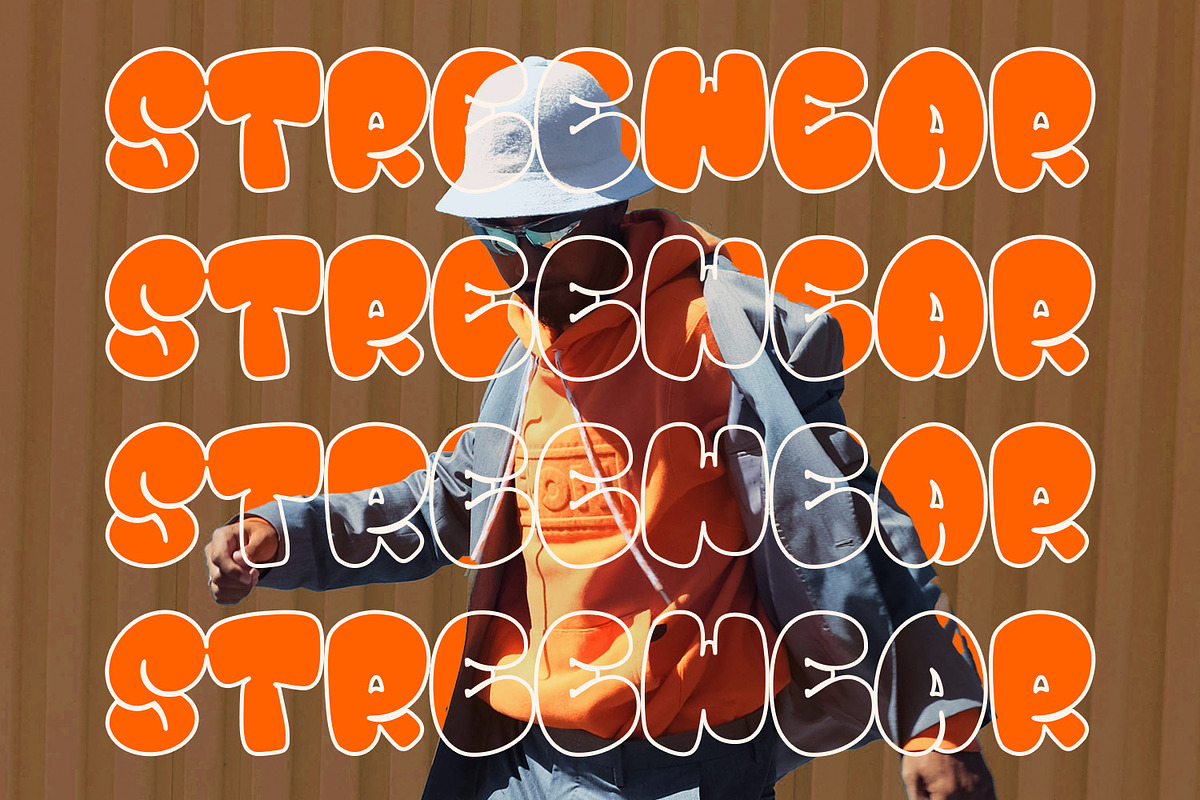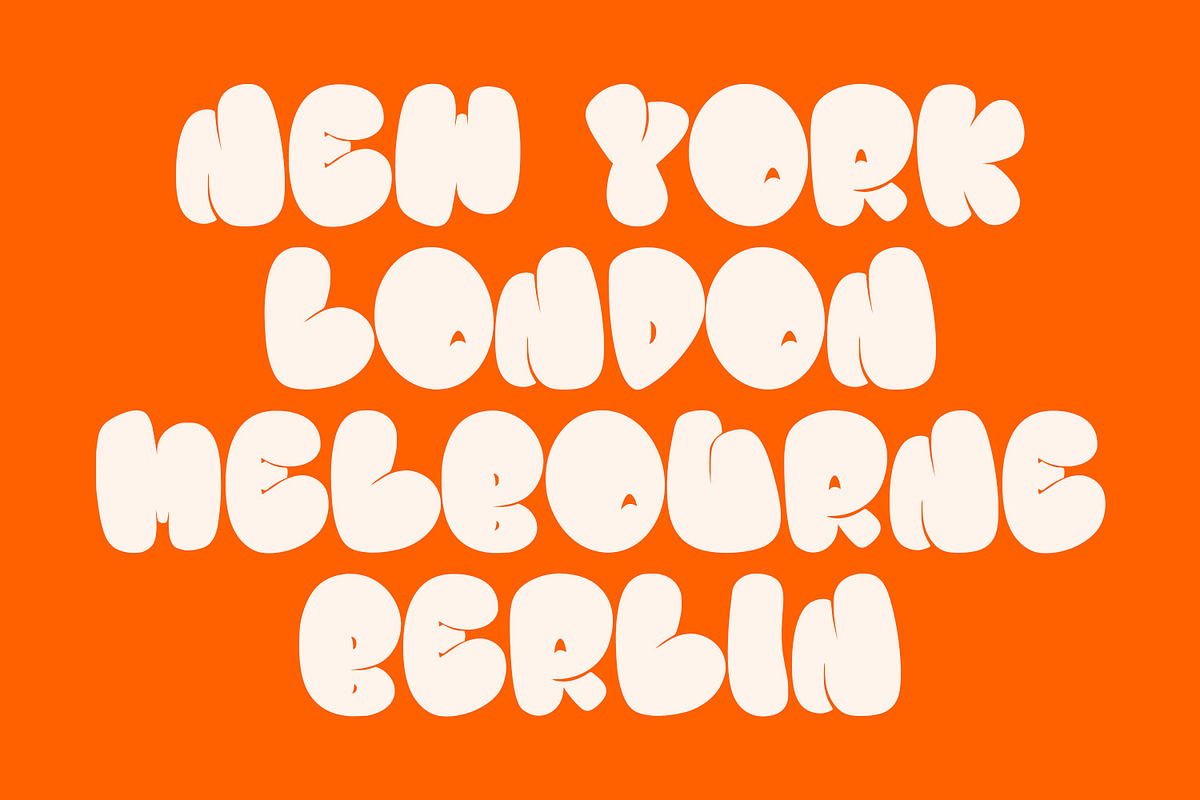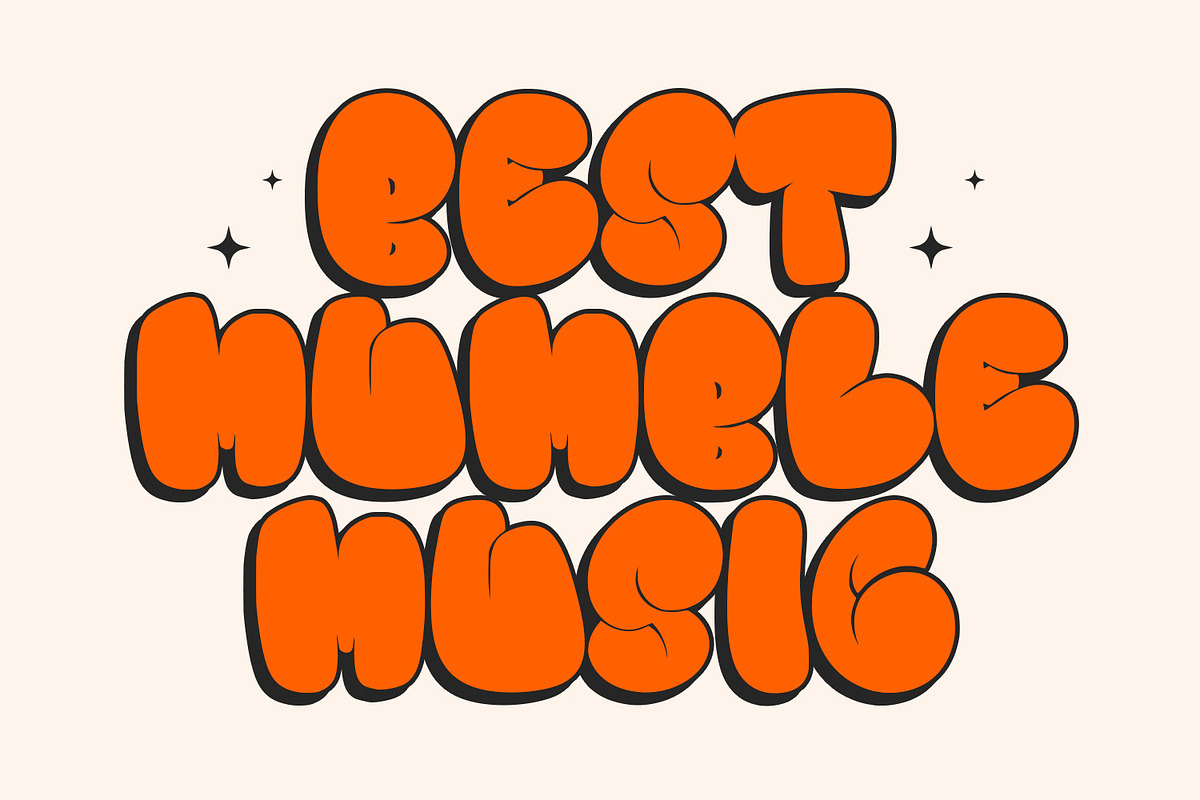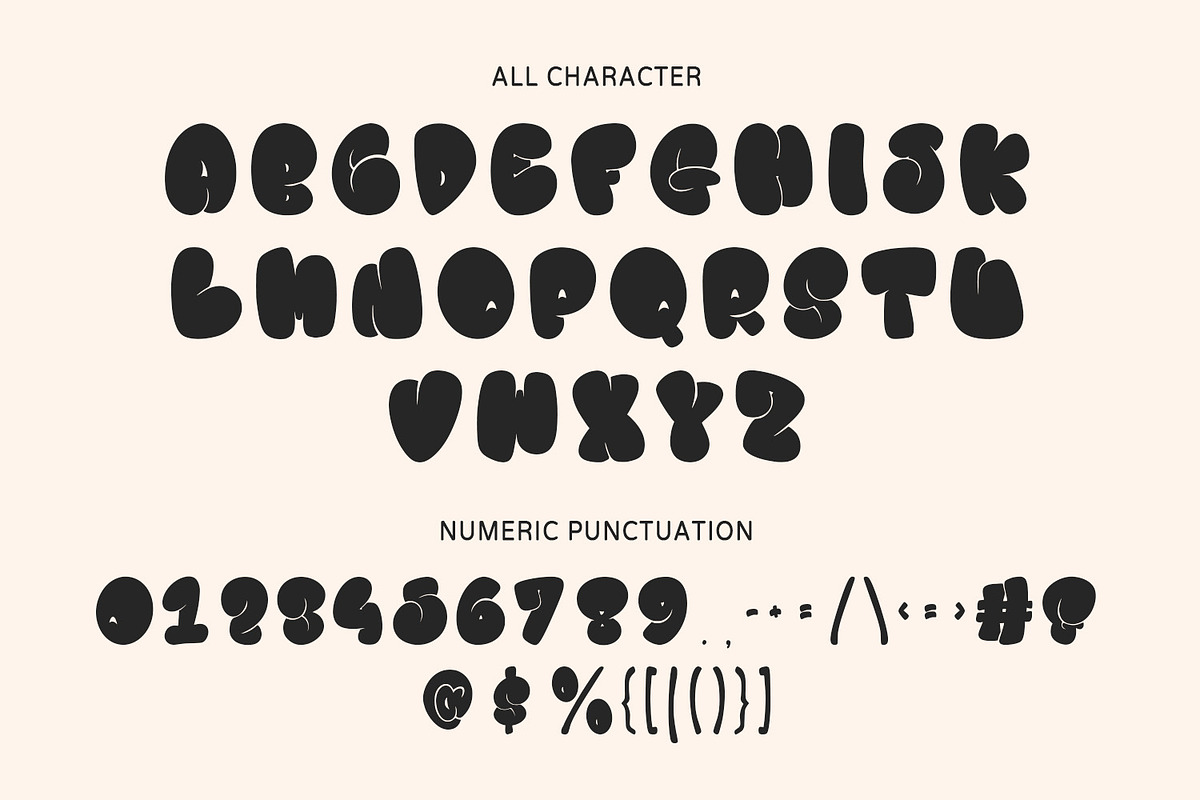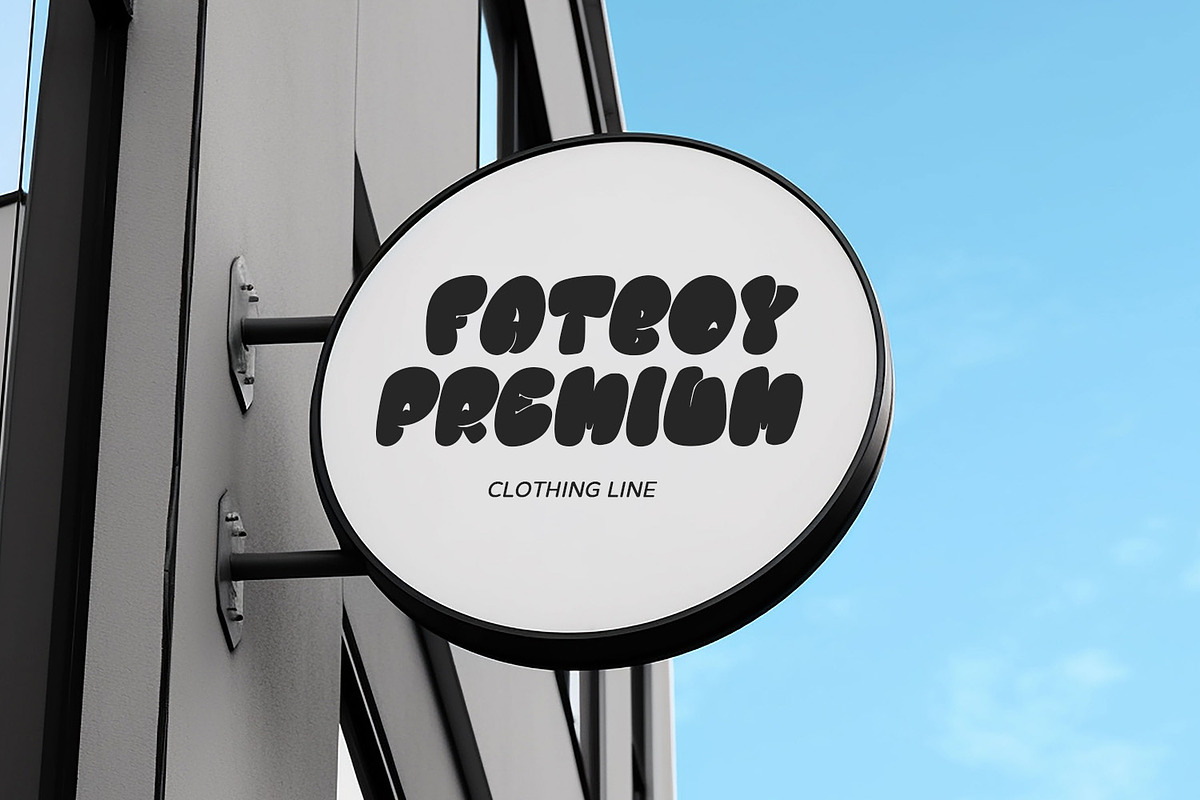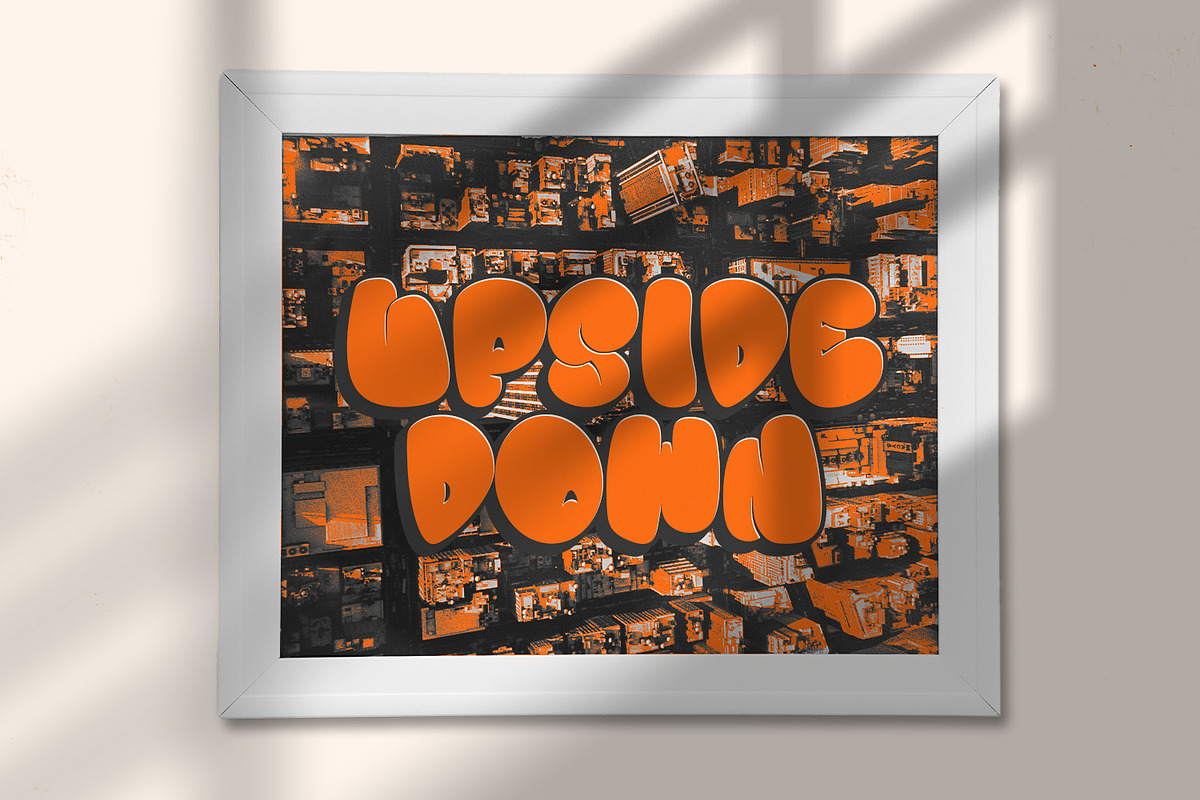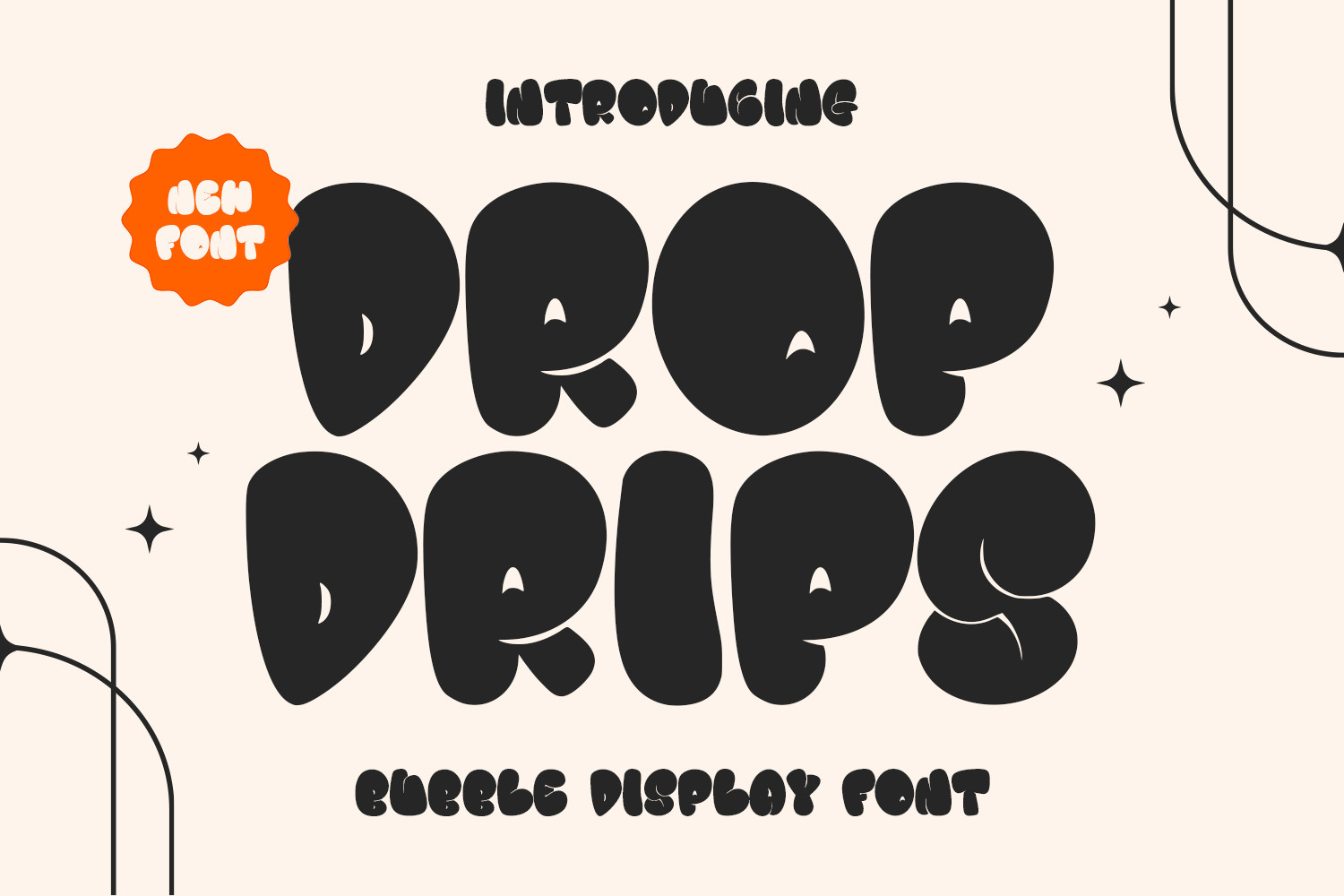
Dropdrips Bubble Display Font
Dropdrips is a bubble display handwritten font. To give you an extra creative work Dropdrips font support multilingual more than 100+ language. This font is good for logo design, Social media, Movie Titles, Books Titles, a short text even a long text letter and good for your secondary text font with sans or serif. Make a stunning work with Dropdrips font.